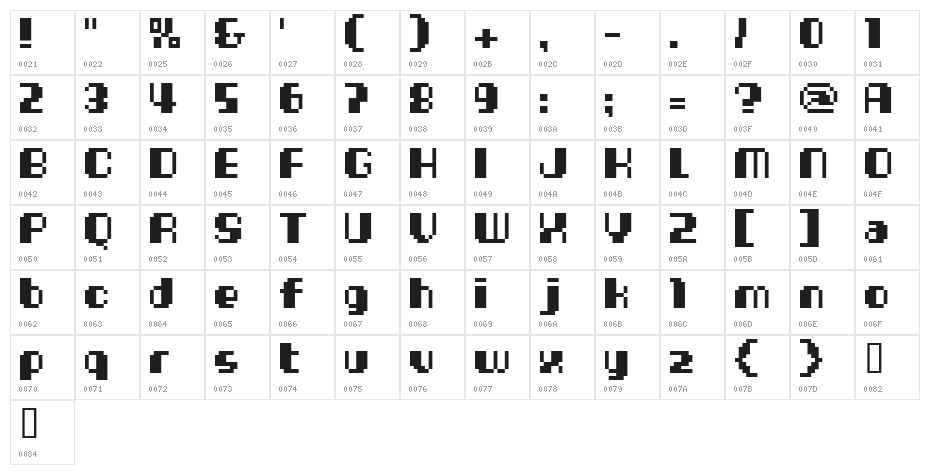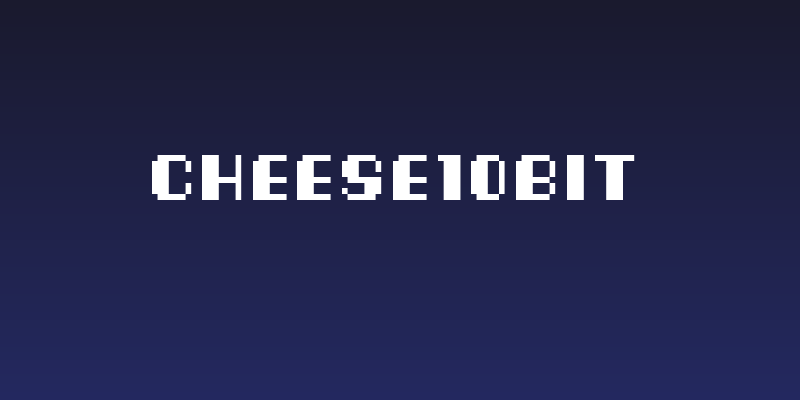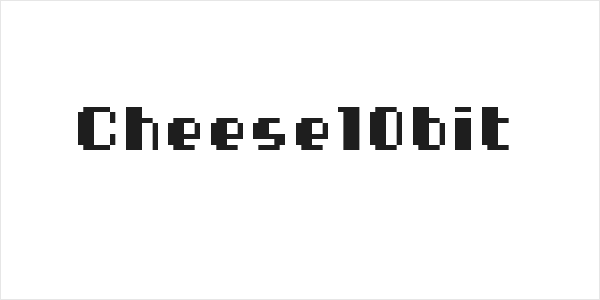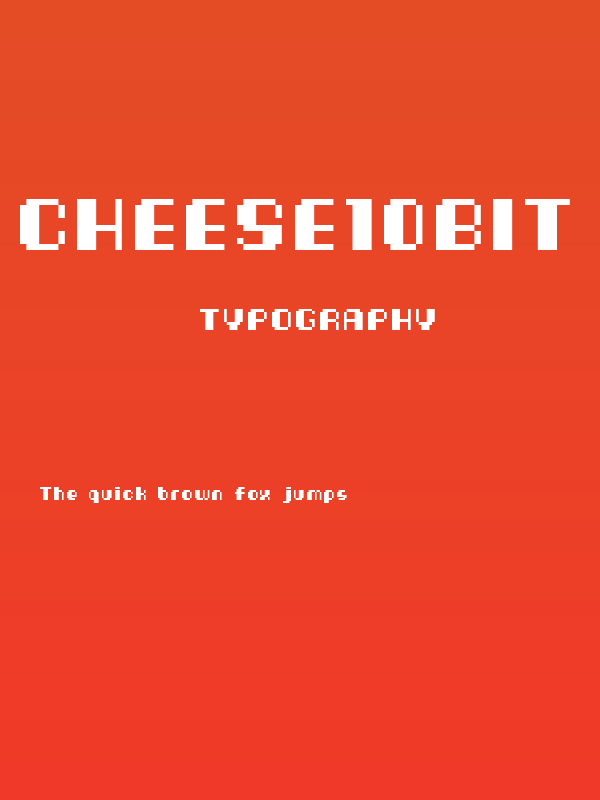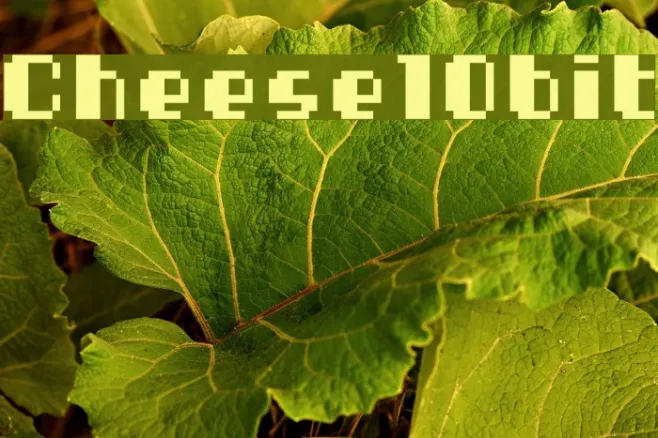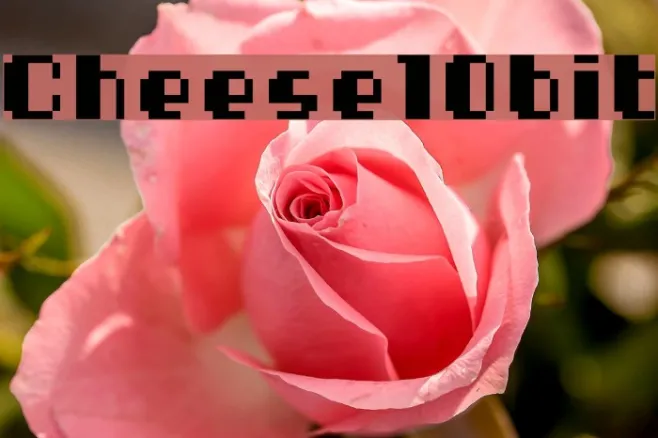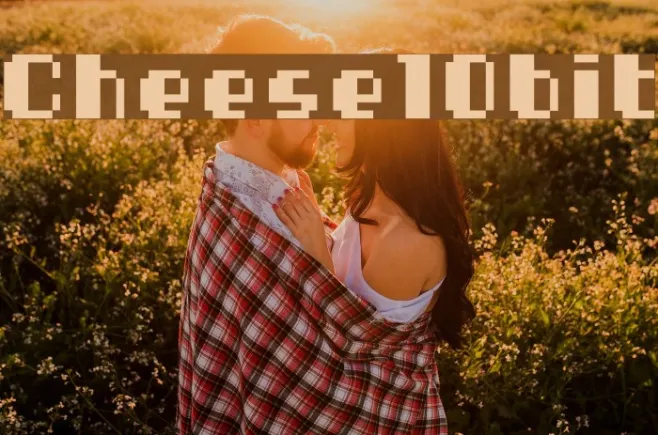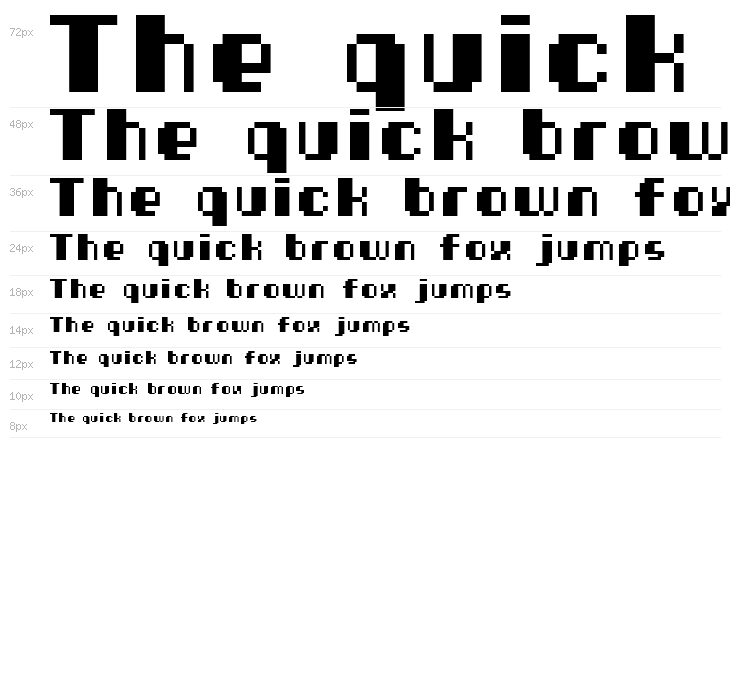
Cheese10bit Font
Cheese10bit Description
This font features a distinct pixelated style reminiscent of early digital displays and retro video games. Each character is constructed with a blocky, grid-like appearance, emphasizing a nostalgic, 8-bit aesthetic. The uppercase and lowercase letters maintain a consistent height, contributing to a uniform look across text. Numbers and special characters follow the same pixelated design, ensuring cohesion throughout. The font's simplicity and geometric form make it highly legible, even at smaller sizes. Its unique style is both playful and functional, ideal for projects that aim to evoke a sense of nostalgia or digital retro charm.
| Proposed Projects | Ideal for video game design, retro-themed posters, digital art projects, and any creative work that seeks to capture a vintage digital aesthetic. |